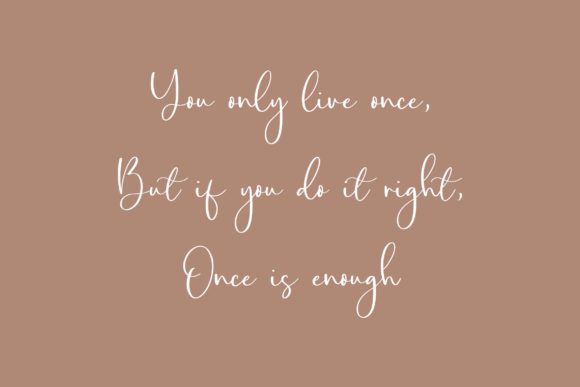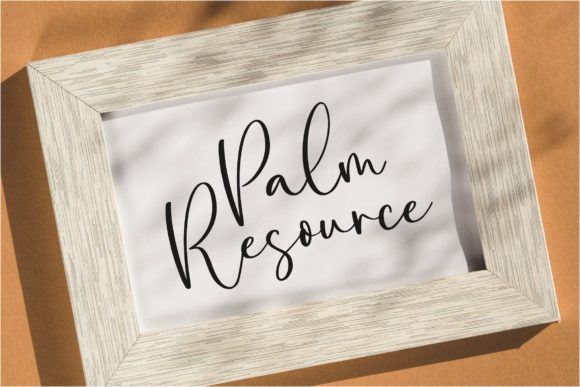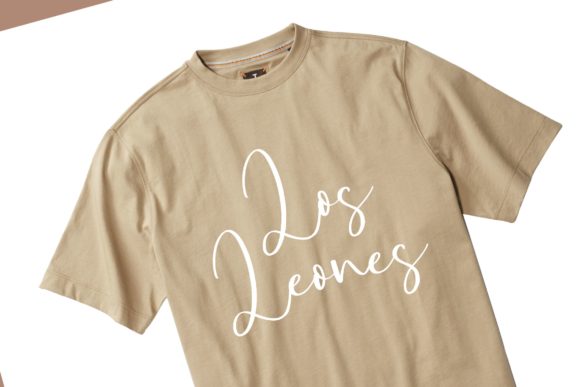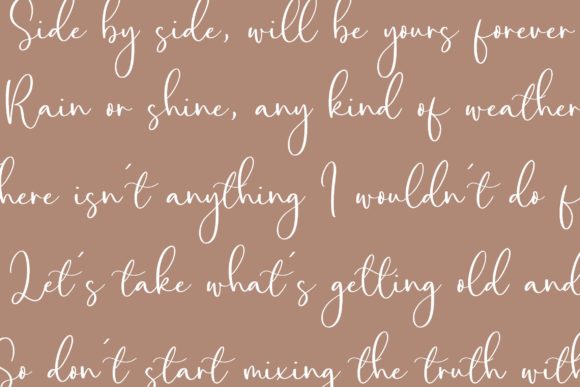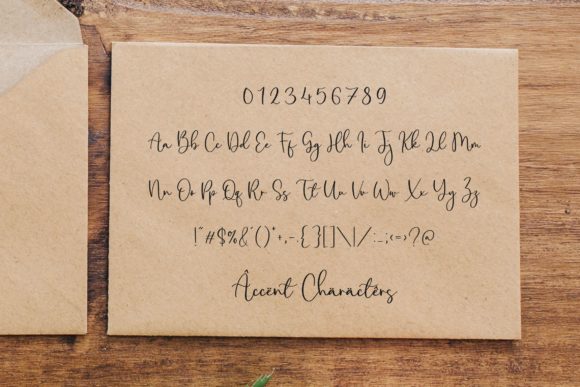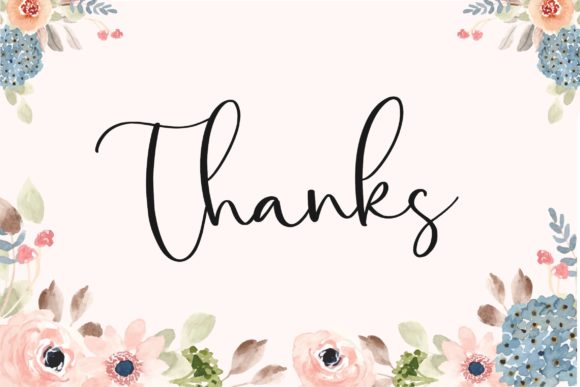
Introducing Amalia Salvatore Font: The Ultimate Handwritten Companion for Designers and Crafters
In the world of typography, a font can make all the difference in transforming a design from ordinary to extraordinary. For designers, crafters, and DIY enthusiasts, finding the perfect font that exudes a friendly and approachable vibe can be a daunting task. That’s where Amalia Salvatore font comes in – a cute and casual handwritten font that is sure to become your new favorite companion.
The Charm of Amalia Salvatore Font
Amalia Salvatore font is a beautifully crafted handwritten font that boasts an incredibly friendly feel. Its casual and approachable nature makes it perfect for a wide range of creative projects, from social media graphics and Instagram posts to calligraphy scripts and DIY crafts. With Amalia Salvatore, you can add a personal touch to your designs and turn them into true pieces of art.
What Makes Amalia Salvatore Font So Special?
So, what sets Amalia Salvatore font apart from other fonts in the market? Here are a few reasons why designers and crafters are falling in love with this charming font:
- Unique Character: Amalia Salvatore font has a distinct character that is both playful and elegant. Its handwritten feel gives it a personal touch that is hard to replicate with generic fonts.
- Versatility: This font is incredibly versatile and can be used for a wide range of projects, from digital designs to print materials.
- Easy to Read: Despite its casual nature, Amalia Salvatore font is surprisingly easy to read, making it perfect for body text and captions.
- Customizable: With Amalia Salvatore font, you can experiment with different colors, textures, and styles to create a unique look that suits your brand or project.
Perfect for Instagram and Social Media Graphics
In today’s digital age, having a strong online presence is crucial for designers, crafters, and small businesses. Amalia Salvatore font is perfect for creating engaging Instagram posts, stories, and IGTV content that will help you stand out from the crowd. Its friendly and approachable nature makes it ideal for:
- Quotes and Inspirational Posts: Add a personal touch to your quotes and inspirational posts with Amalia Salvatore font.
- Product Showcases: Showcase your products in a unique and visually appealing way with this charming font.
- Behind-the-Scenes Content: Give your followers a glimpse into your creative process with Amalia Salvatore font.
Calligraphy Scripts for DIY Projects
Amalia Salvatore font is not just limited to digital designs. Its beautiful handwritten feel makes it perfect for calligraphy scripts and DIY projects, such as:
- Hand Lettering: Create stunning hand-lettered pieces with Amalia Salvatore font.
- DIY Cards and Invitations: Add a personal touch to your cards and invitations with this charming font.
- Journaling and Scrapbooking: Use Amalia Salvatore font to add a creative and artistic touch to your journaling and scrapbooking projects.